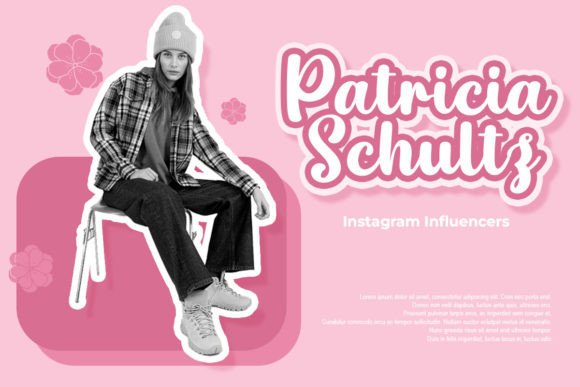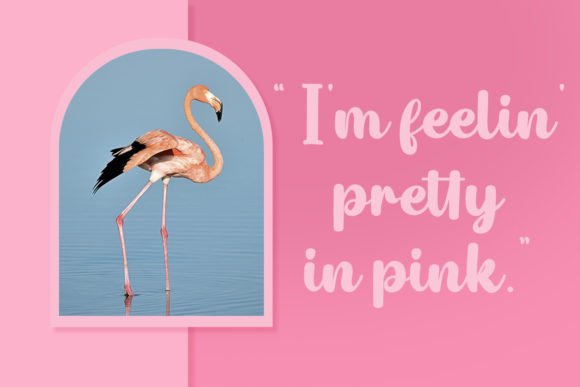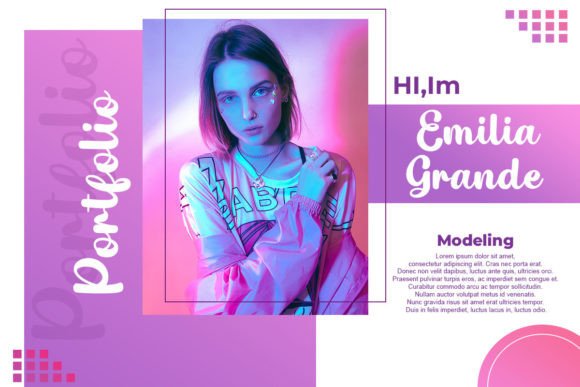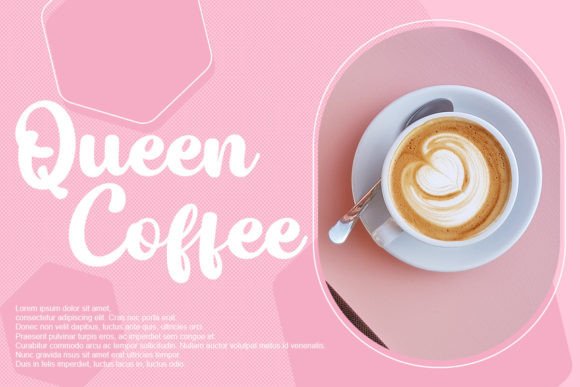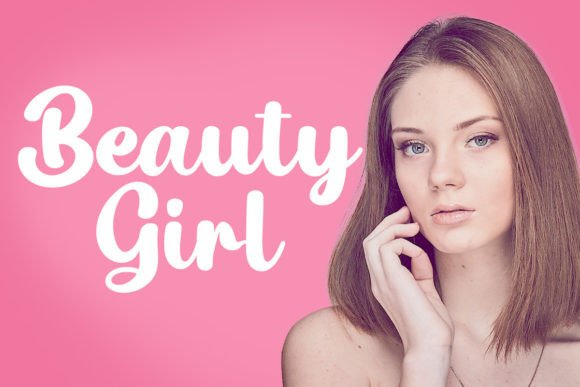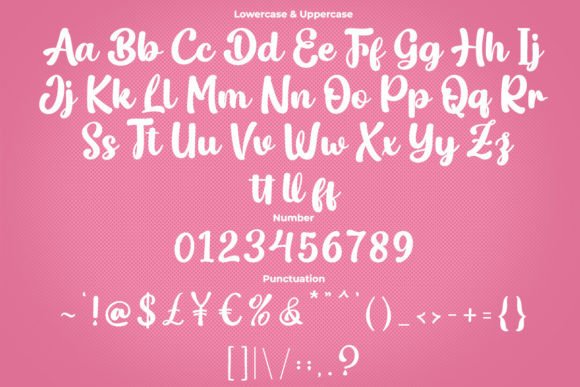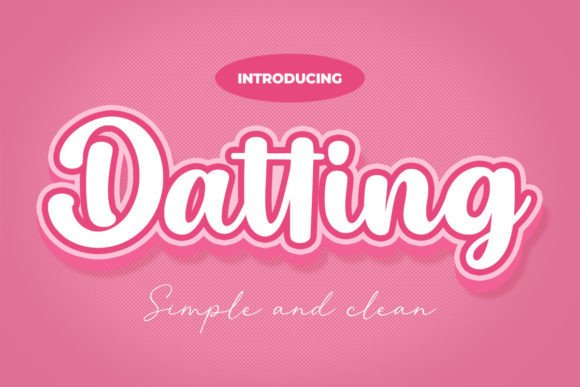
Datting Font: Elevate Your Designs with Bold and Elegant Characters
Are you tired of using the same old fonts in your designs? Look no further than Datting Font, a stunning typeface that combines bold and elegant characters to make your work stand out. Created with strokes in Procreate and perfected in Adobe Illustrator, Datting Font is a unique and versatile font that can be used for a wide range of design projects.
A Simple yet Impactful Impression
One of the defining features of Datting Font is its simple yet impactful impression. The font’s clean lines and minimalist aesthetic make it perfect for designs that require a touch of sophistication and elegance. At the same time, the font’s bold characters add a playful and fun touch, making it ideal for designs that need to grab attention.
Funny and Playful Characters
Datting Font is not just elegant and bold; it’s also playful and fun. The font’s characters have a quirky and whimsical feel to them, making it perfect for designs that require a dash of humor and personality. Whether you’re designing a brochure, poster, or t-shirt, Datting Font is sure to add a touch of whimsy and charm to your work.
Datting Font is an incredibly versatile font that can be used for a wide range of design projects. Here are just a few examples of how you can use this amazing font:
- Brochures: Use Datting Font to create eye-catching brochures that showcase your products or services.
- Banners: Make a bold statement with Datting Font on your banners and posters.
- Posters: Create stunning posters that grab attention with Datting Font.
- Invitations: Add a touch of elegance and sophistication to your invitations with Datting Font.
- T-shirt designs: Use Datting Font to create fun and playful t-shirt designs that stand out.
- Hat designs: Add a touch of personality to your hat designs with Datting Font.
- Portfolios: Use Datting Font to create a stunning portfolio that showcases your work.
- Packaging: Make your packaging stand out with Datting Font.
- Web design: Use Datting Font to add a touch of elegance and sophistication to your website.
Easy to Use
One of the best things about Datting Font is how easy it is to use. The font is carefully crafted to ensure that it’s easy to read and understand, making it perfect for designers of all skill levels. Whether you’re a seasoned pro or just starting out, Datting Font is a great choice for your next design project.
In conclusion, Datting Font is an amazing typeface that can elevate your designs to the next level. With its bold and elegant characters, simple yet impactful impression, and playful and fun personality, Datting Font is perfect for a wide range of design projects. So why settle for boring and generic fonts when you can use Datting Font to make your work stand out? Download Datting Font today and start creating stunning designs that grab attention!